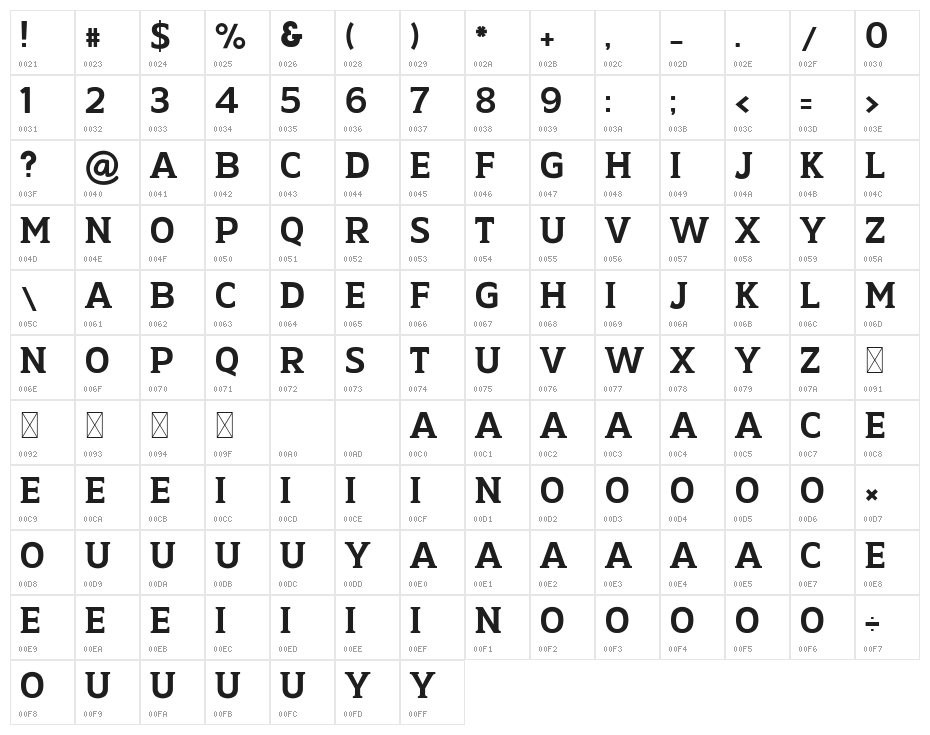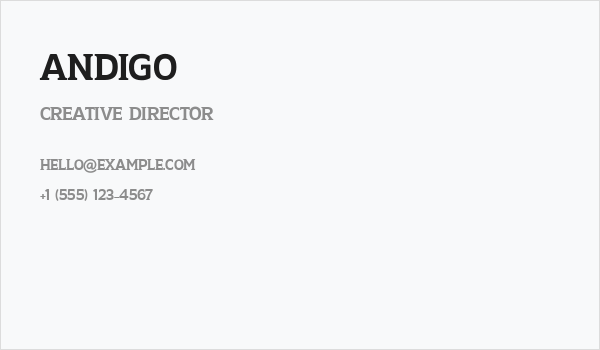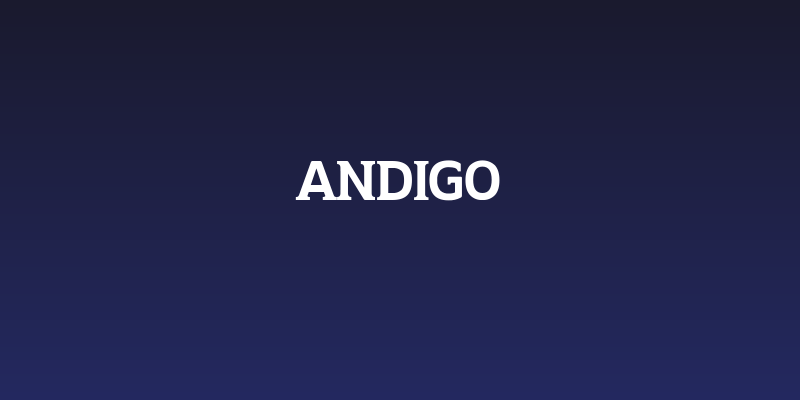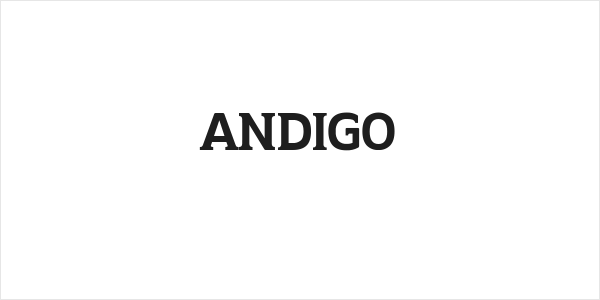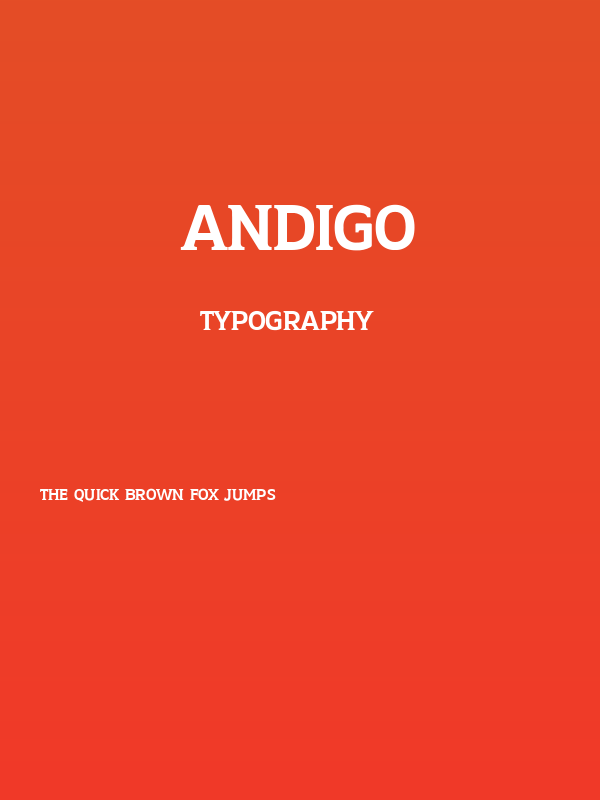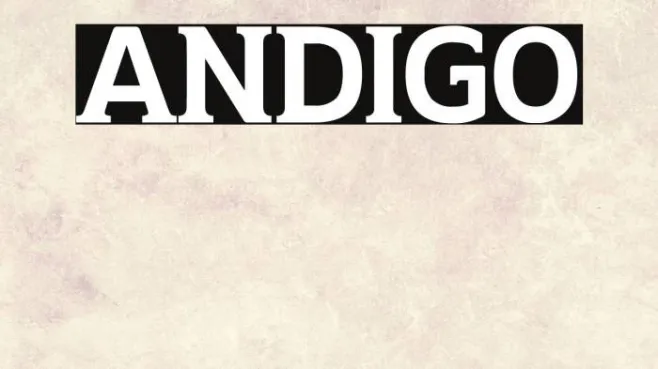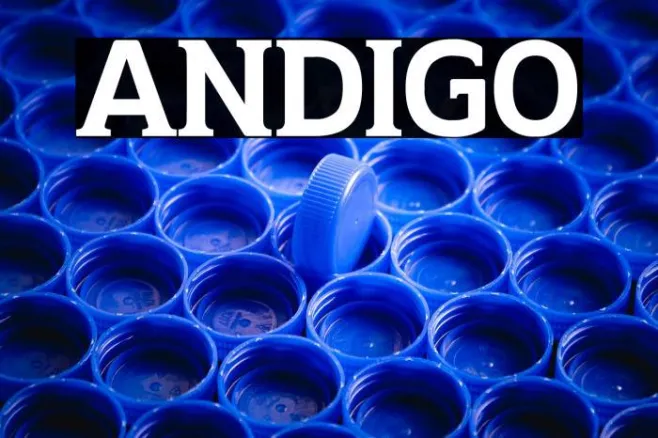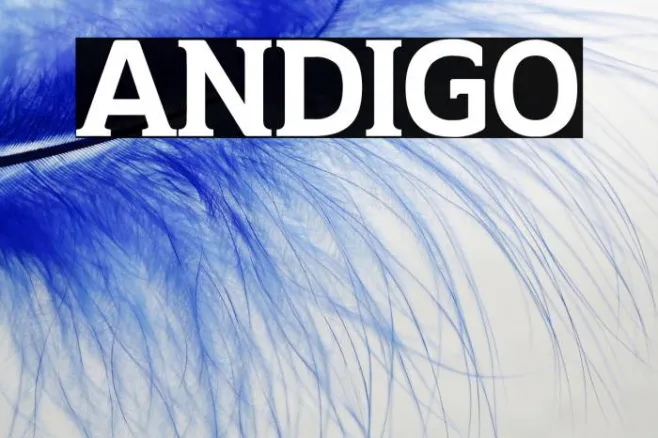
ANDIGO Font
ANDIGO Description
This font features a bold and commanding presence with its strong, thick strokes and slightly condensed letterforms. The uppercase letters are particularly striking, with a uniform height and width that create a sense of stability and reliability. The lowercase letters maintain the same boldness, ensuring consistency across different text sizes. The numerals are clear and easily distinguishable, making them suitable for both display and informational purposes. Special characters are well-integrated, maintaining the overall aesthetic of the font. The design is modern yet timeless, making it versatile for various applications.
| Proposed Projects | Ideal for branding, headlines, posters, and any design requiring a strong visual impact. |